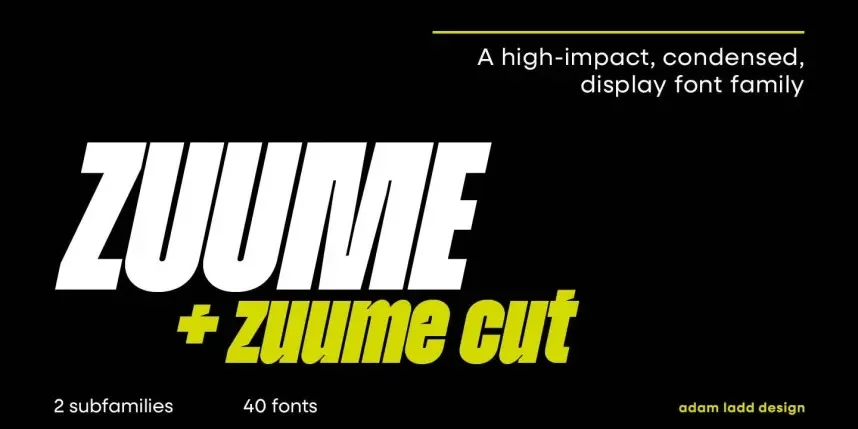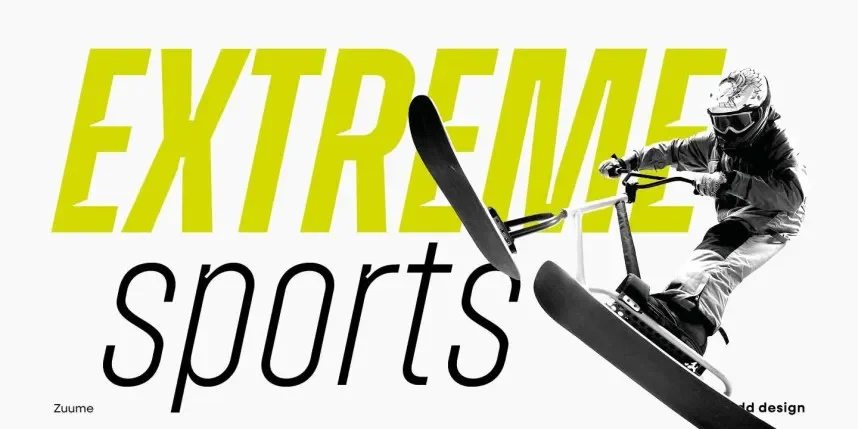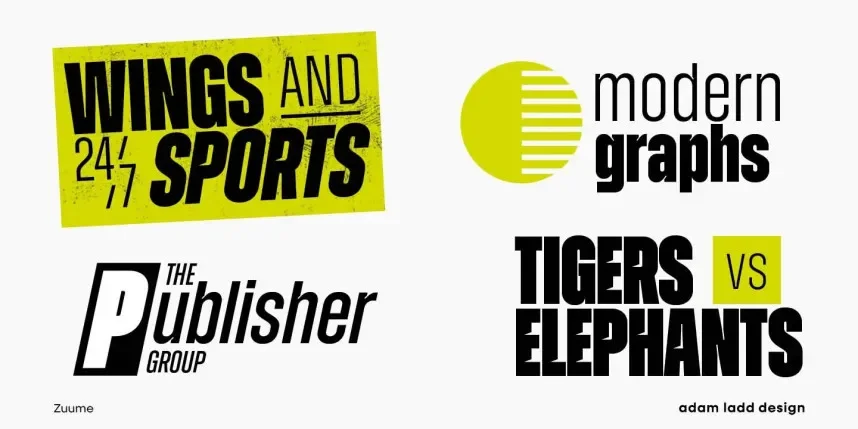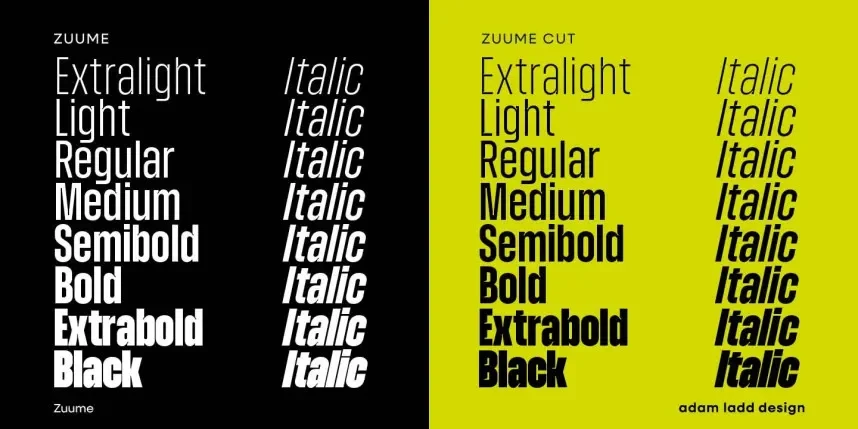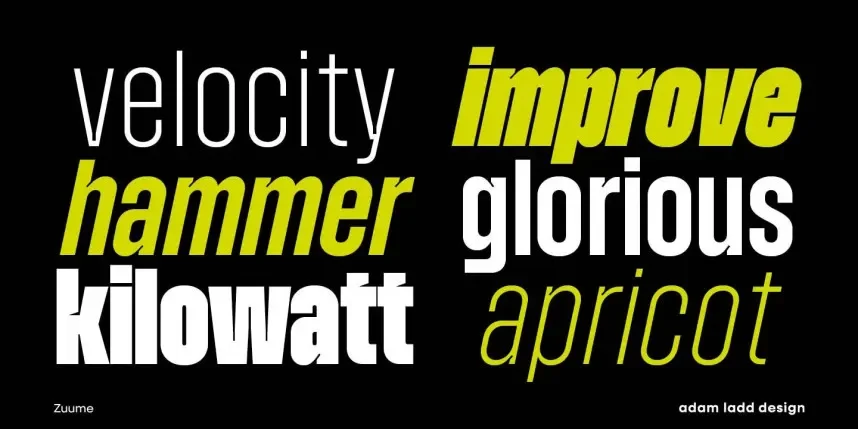
Zuume Font Family addresses layout constraints where space-saving typography is required. Condensed fonts often feel cramped or hard to read.
Zuume is a condensed sans-serif font family with tall letterforms, clean strokes, and consistent proportions. It supports strong visual hierarchy in branding and editorial layouts.